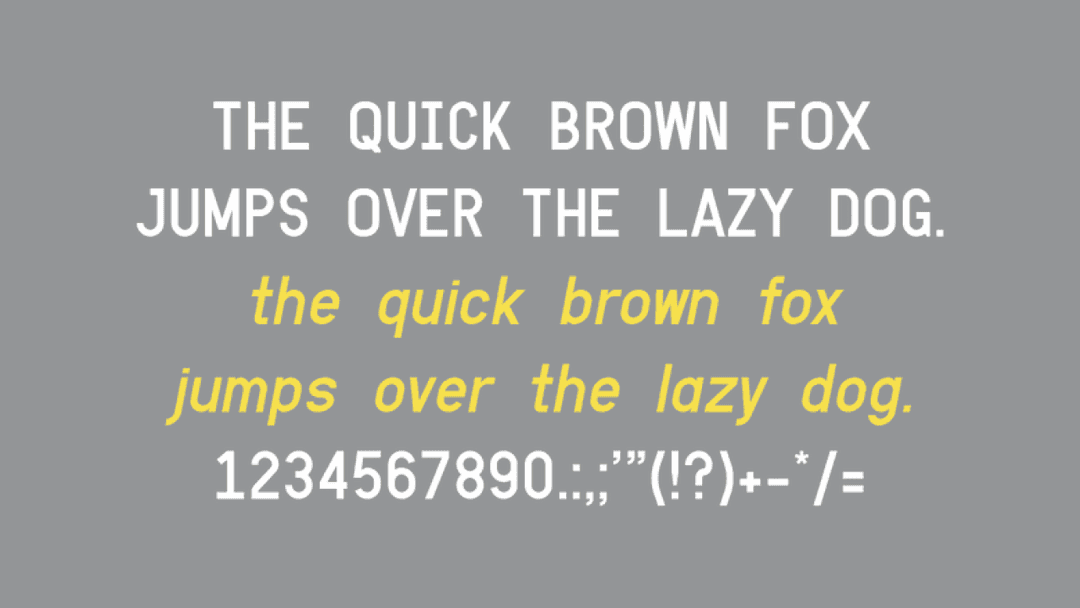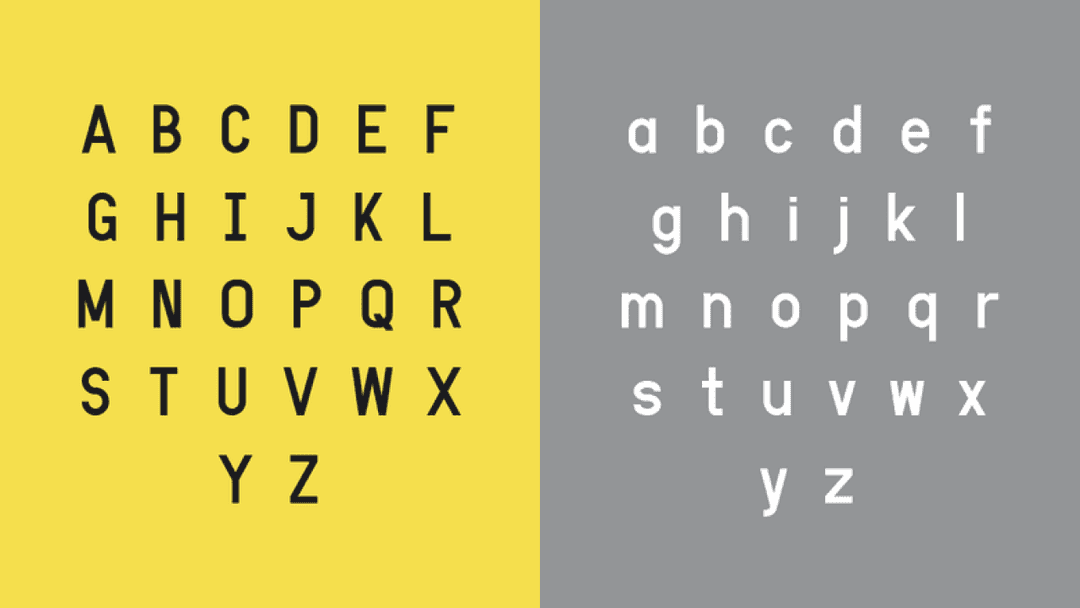
Discover Lambda Font, part of the Commercial Sans Serif collection—a versatile and unique font perfect for adding a personal touch to your projects. Download it for free and enjoy crafting designs with style, from invitations to social media posts. This font is available exclusively for personal use, giving you the freedom to create without limits. Unlock your creativity with Lambda Font today!